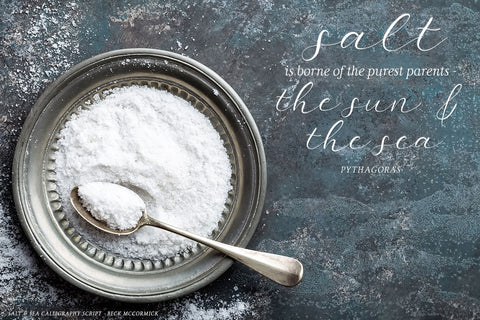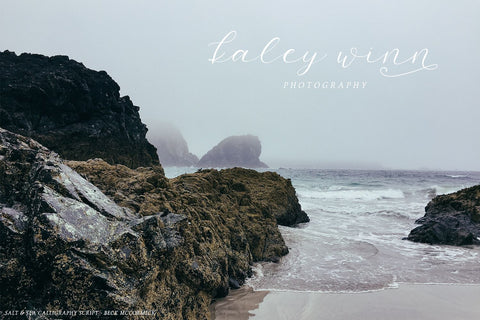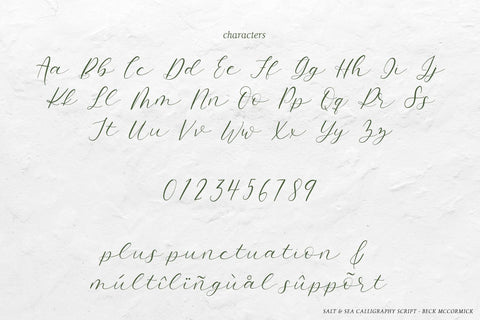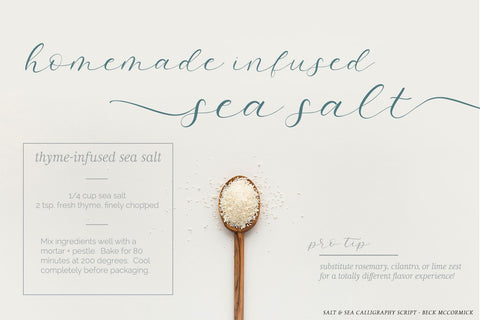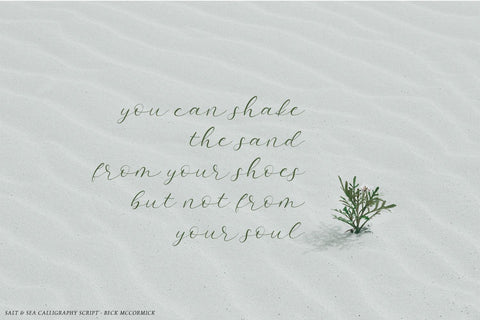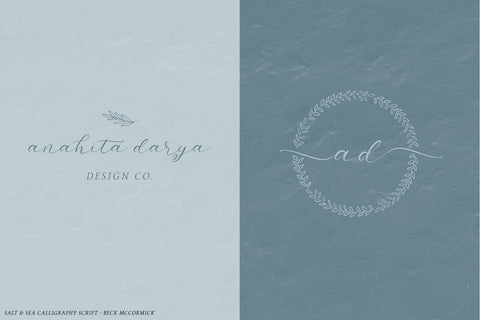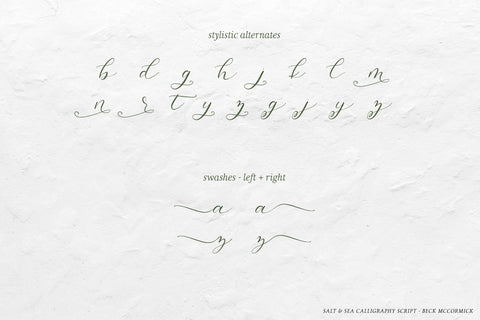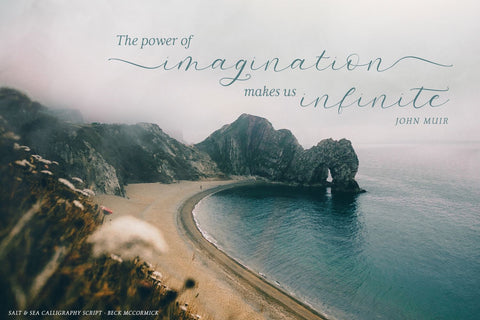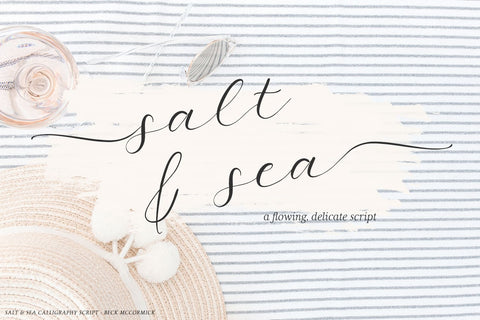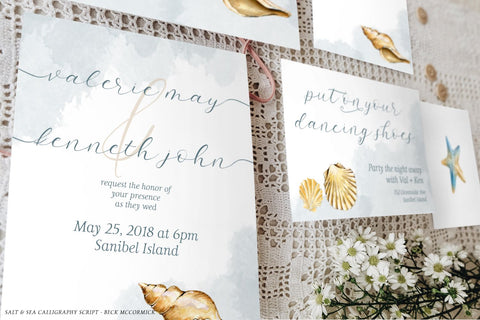
Salt and Sea Calligraphy Font
Introducing Salt & Sea Script, a wispy and feminine script font, inspired by the faint, delicate salty air and rolling sea.  It’s the perfect addition to a luxe, feminine brand, wedding invitations, and it would also make a perfect, subtle yet professional watermark for images.
Salt & Sea Script includes the following features:
* Includes upper + lowercase letters, numbers, basic punctuation, and Western European language support.
* Dainty, clean, thin lines and easy to read characters
* Salt & Sea is PUA-encoded. It includes a lot of OpenType features best accessed through a Glyphs panel, but its PUA-encoding makes the special characters easy to find in a character map.
Stylistic Alternates Include:
long, flowing left + right swashes on each lowercase letter
b, d, g (2 options), h, j (2 options), k, l, m, n, r, t, y (2 options), z (2 options)